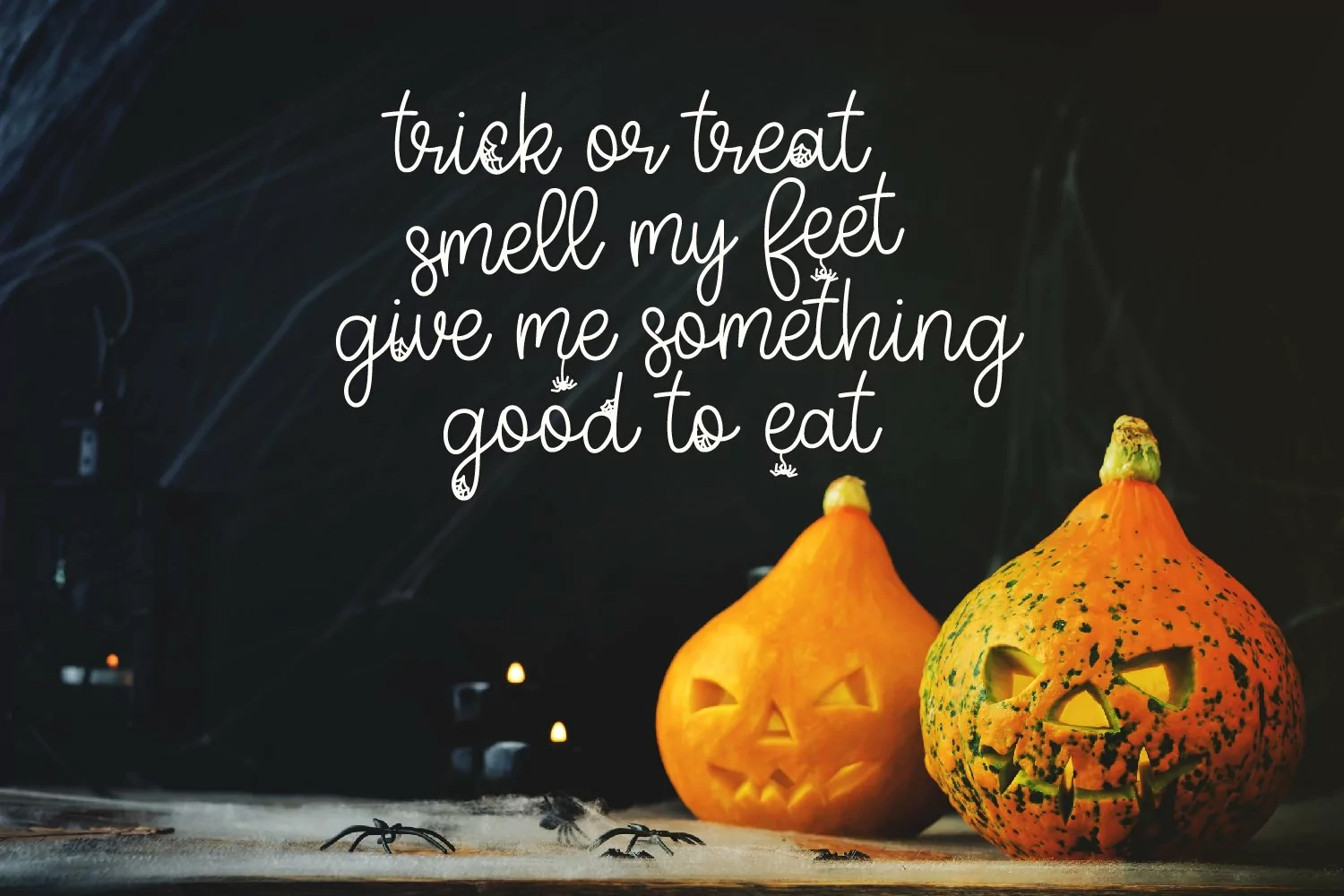
CLN - Witchy - A Halloween Script
Each lower case letter has an alternative "Spiders & Cobwebs" version - along with a few little swirly swooshes and broomstick ends to make your designs fly right over the full moon for halloween. :)